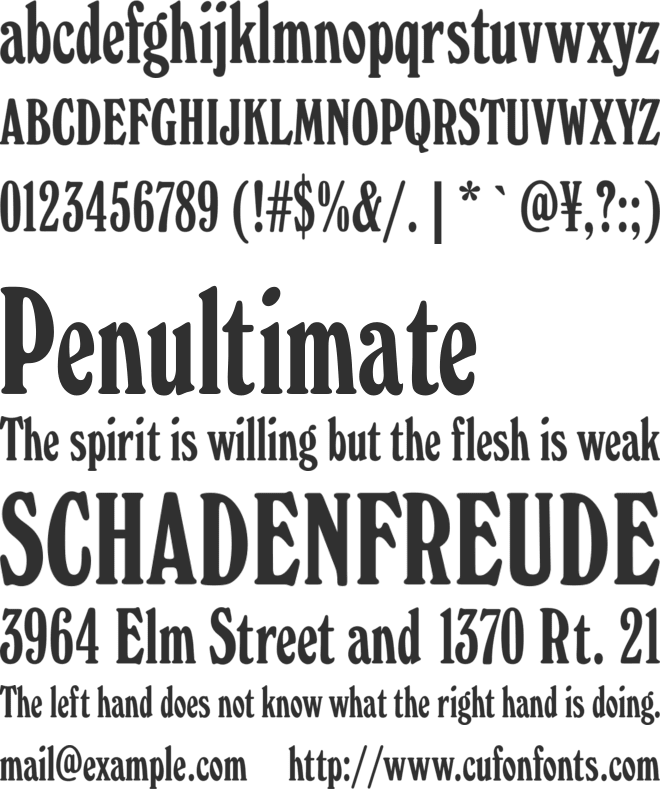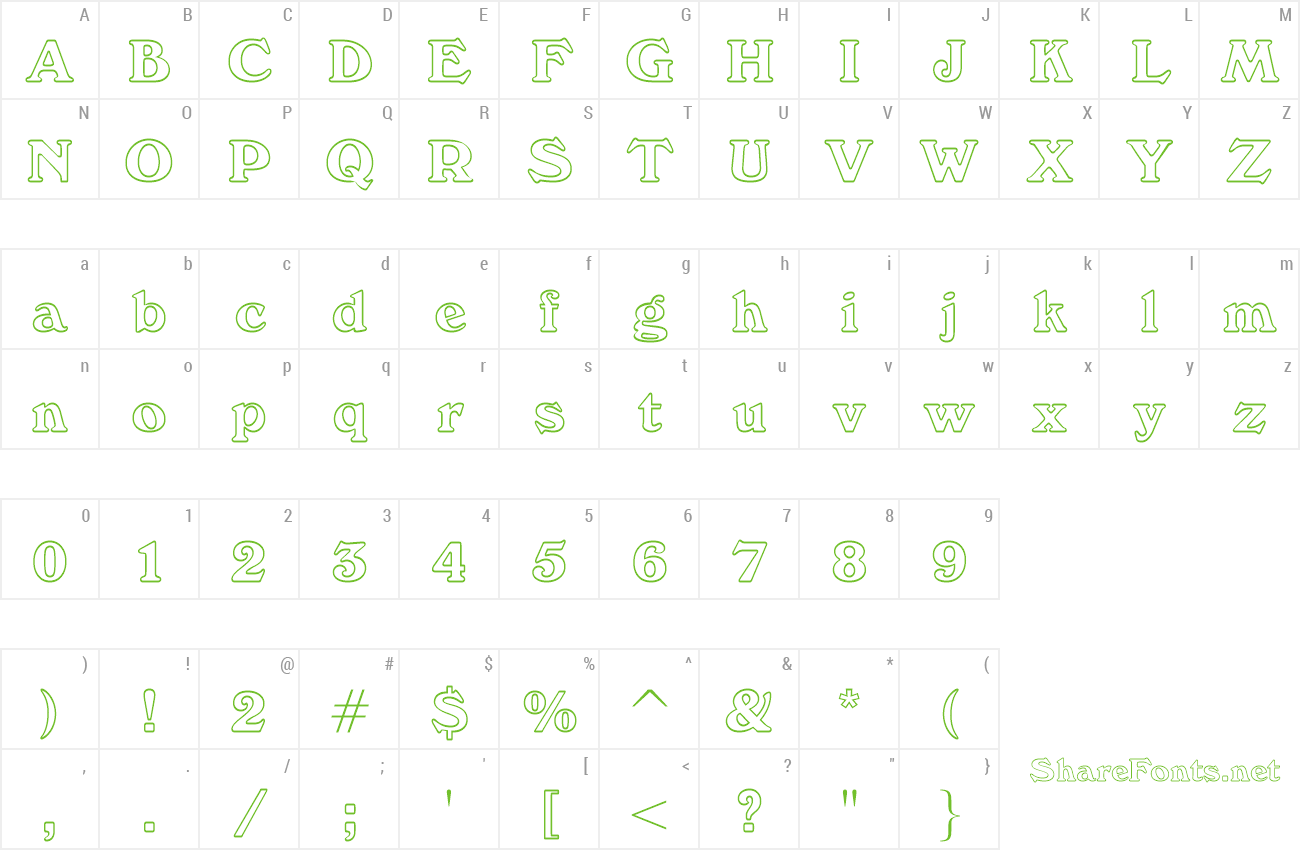
Windsor Font Free
Windsor Font Free - Web download windsor regular font free! Web windsor is a serif typeface designed by eleisha pechey and released through the stephenson blake foundry in.
Web Windsor Is A Serif Typeface Designed By Eleisha Pechey And Released Through The Stephenson Blake Foundry In.